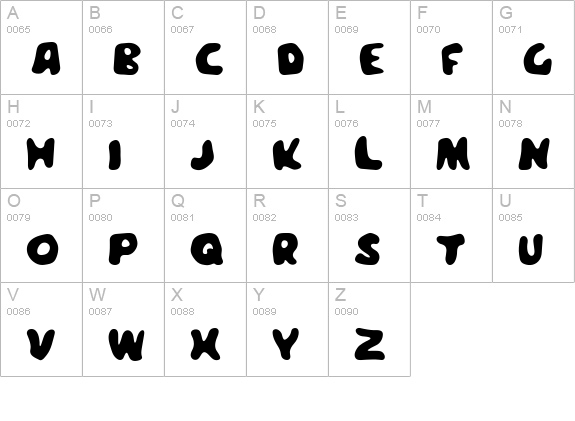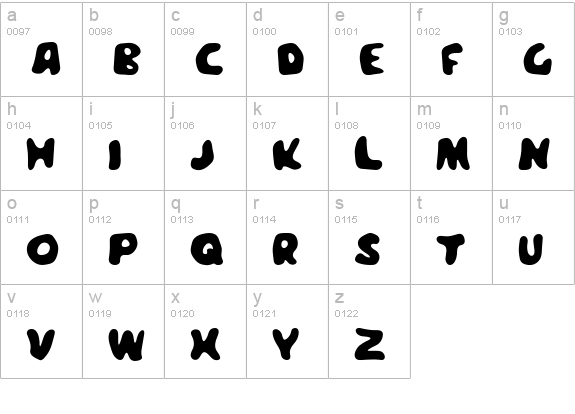
Meegoreng Font Details
Introducing Meegoreng font, a stylish and versatile typeface that is sure to elevate your design projects to the next level. With its modern yet timeless aesthetic, Meegoreng font is perfect for a wide range of applications, from branding to editorial design. But what truly sets Meegoreng font apart is that it is completely free for personal and commercial use. Yes, you read that right – this high-quality font is available for download at FontsMarket.com at no cost to you. So go ahead and add Meegoreng font to your collection today and unleash your creativity with this exceptional typeface.